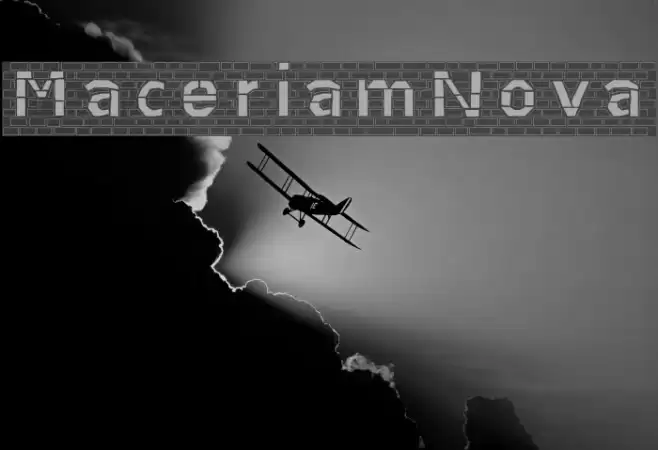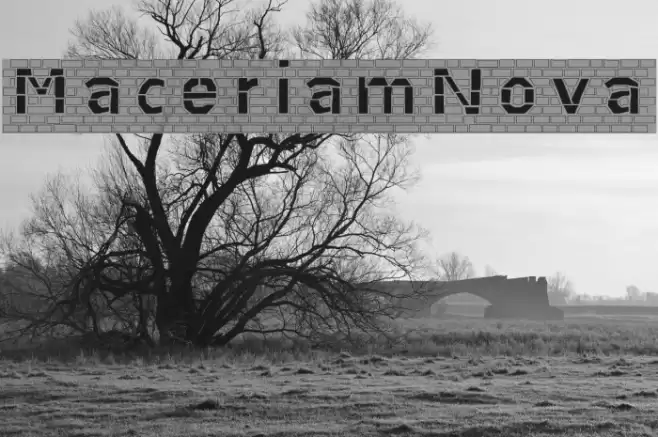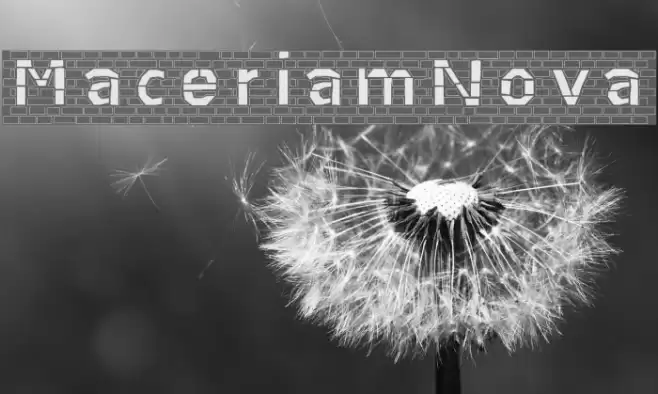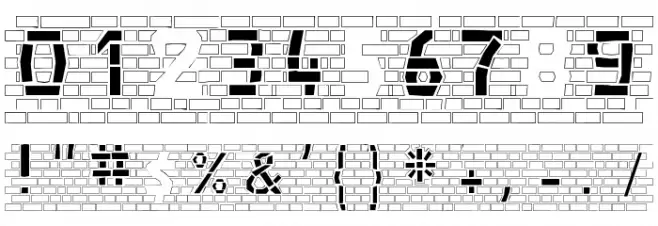
MaceriamNova Font
MaceriamNova Description
This font features a unique and bold design with a distinct geometric style. Each character is constructed with a combination of solid black and white spaces, creating a striking contrast that resembles a stencil or cut-out effect. The uppercase and lowercase letters maintain a consistent width, giving the font a uniform appearance. The numerals and special characters follow the same design principles, ensuring a cohesive look across all elements. The font's design is reminiscent of architectural or industrial themes, with a modern twist that makes it suitable for eye-catching displays.
A bold, geometric font with a stencil-like design and high contrast from Uncategorized fonts.